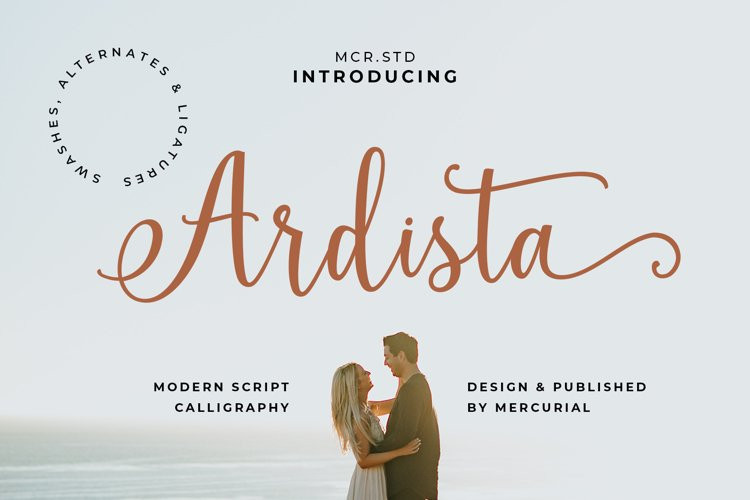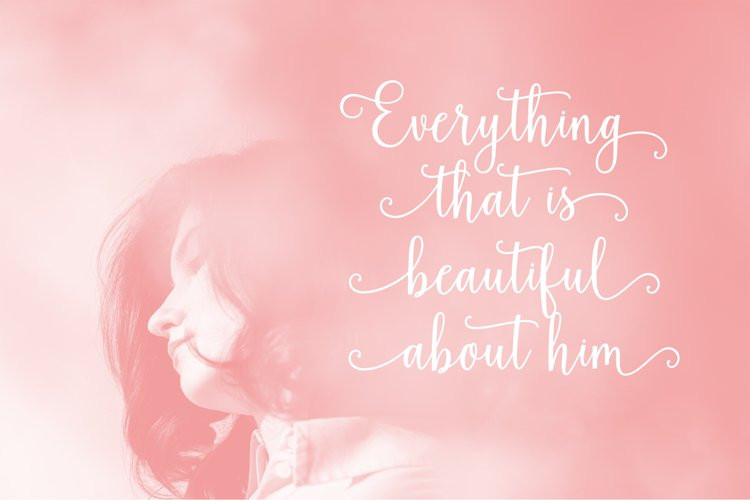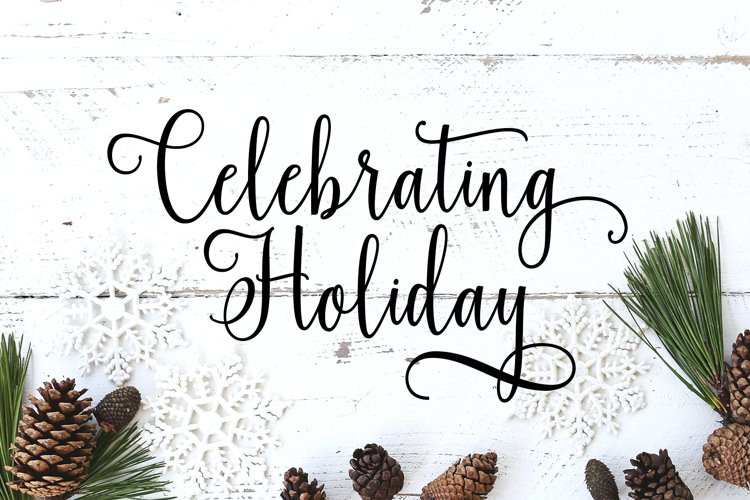
Ardista Font
Ardista FontThis is ARDISTA SCRIPT, a new fresh & modern script with calligraphy style. a charming typeface and So beautiful on invitation like greeting cards, branding materials, business cards, quotes, posters, and more. ARDISTA SCRIPT also has a swash letters from a – z, alternates, ligatures that would make it a more attractive font.